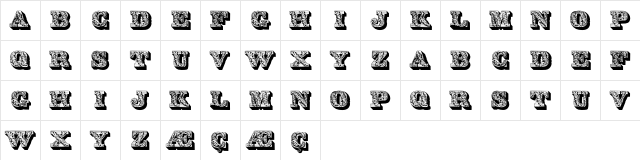
Lettres ombrees ornees Regular
| Designer | Dieter Steffmann |
Design Context for Lettres ombrees ornees Typeface
Lettres ombrees ornees is a composed and adaptable typeface that performs quietly and consistently across a wide range of design contexts.